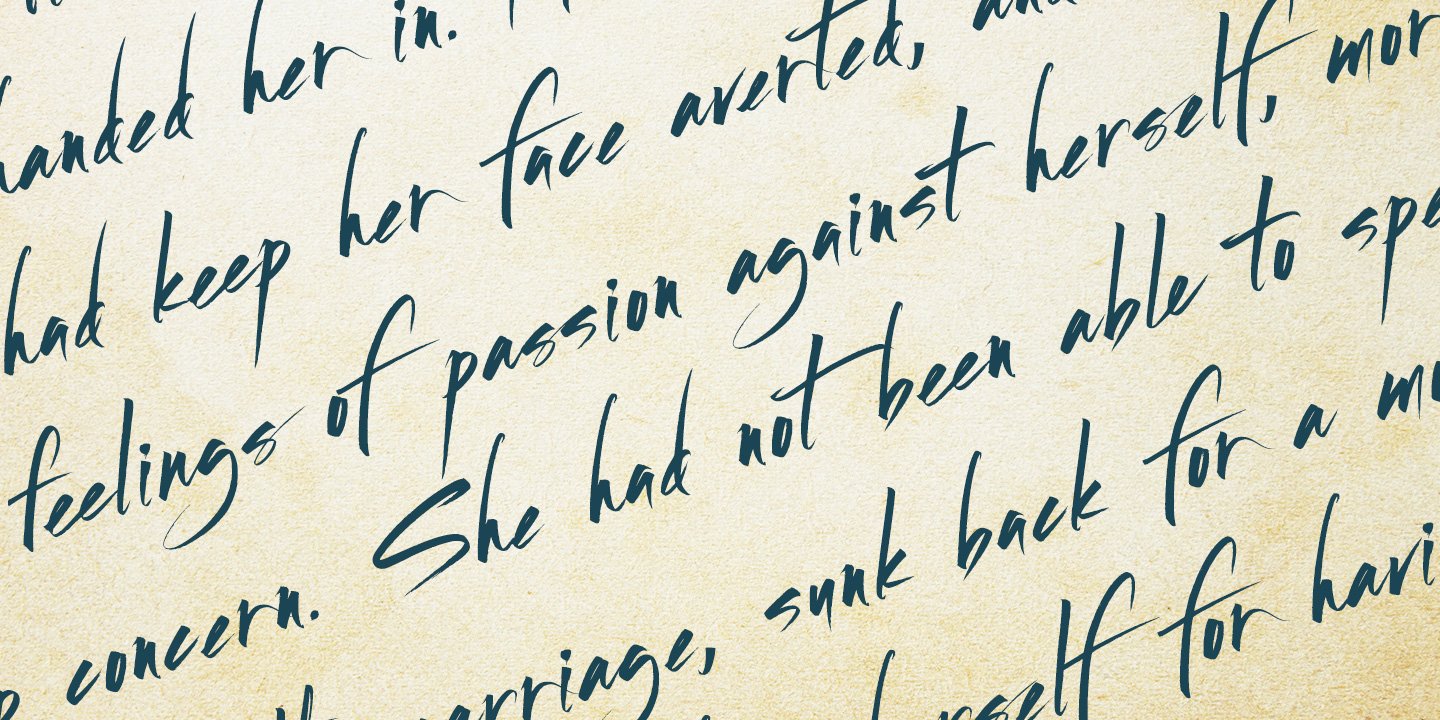
French Kiss (1 font)
French Kiss contains 28 alternates and ligatures for enhanced diversity and legibility. Unfortunately, the MyFonts display engine does not show the contextual alternates.
Additionally, the entire font has been meticulously kerned, letter by letter to ensure a smooth flow, in spite of the expressiveness of the letters.